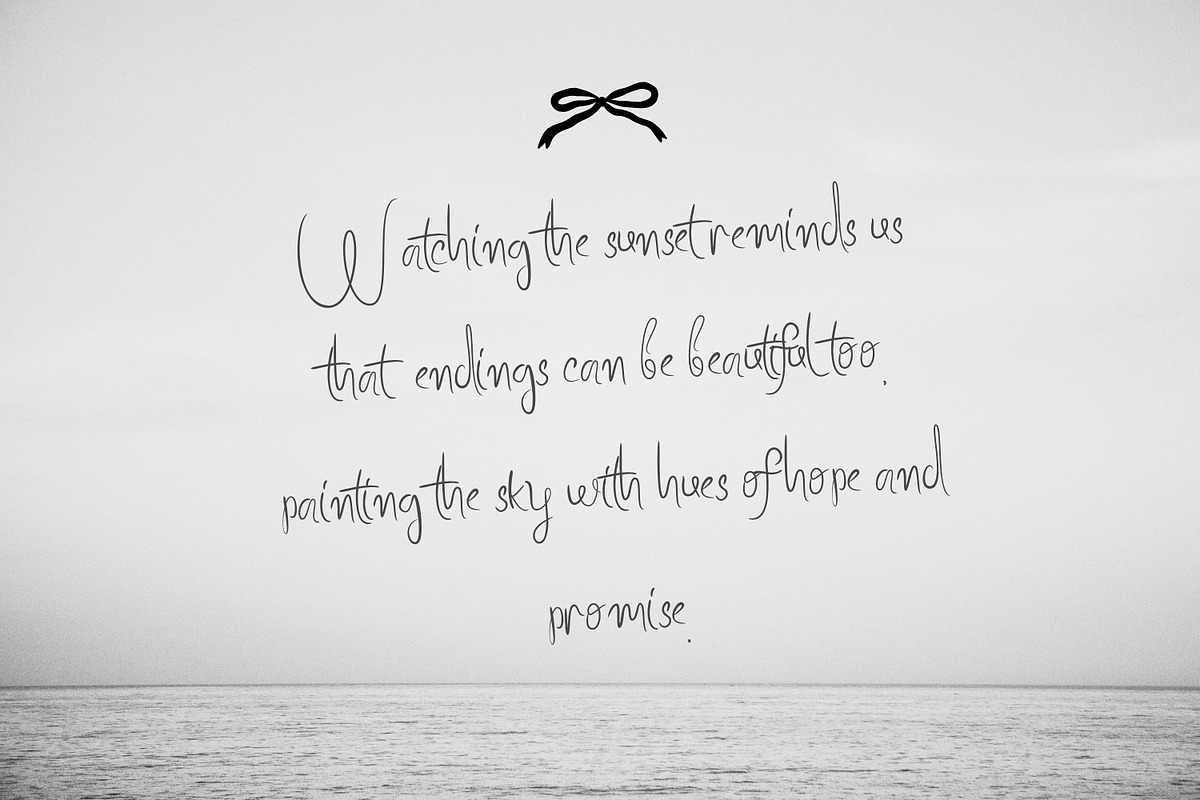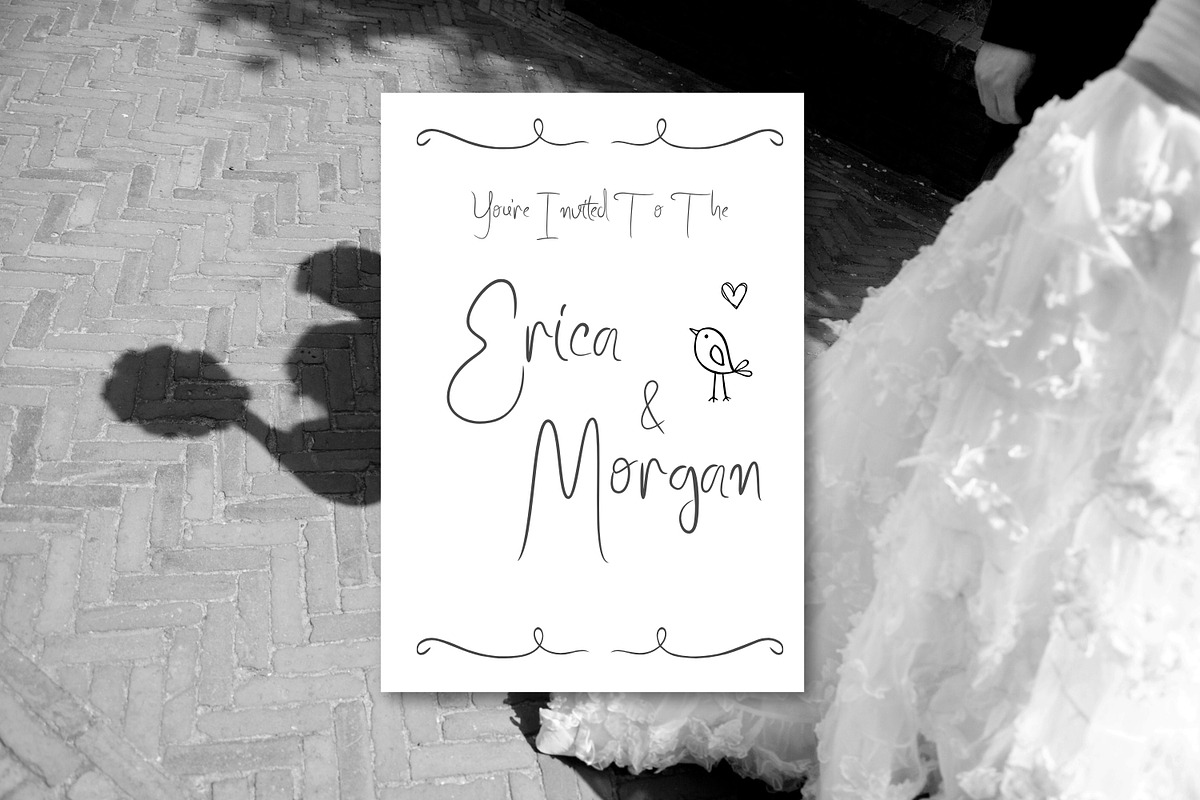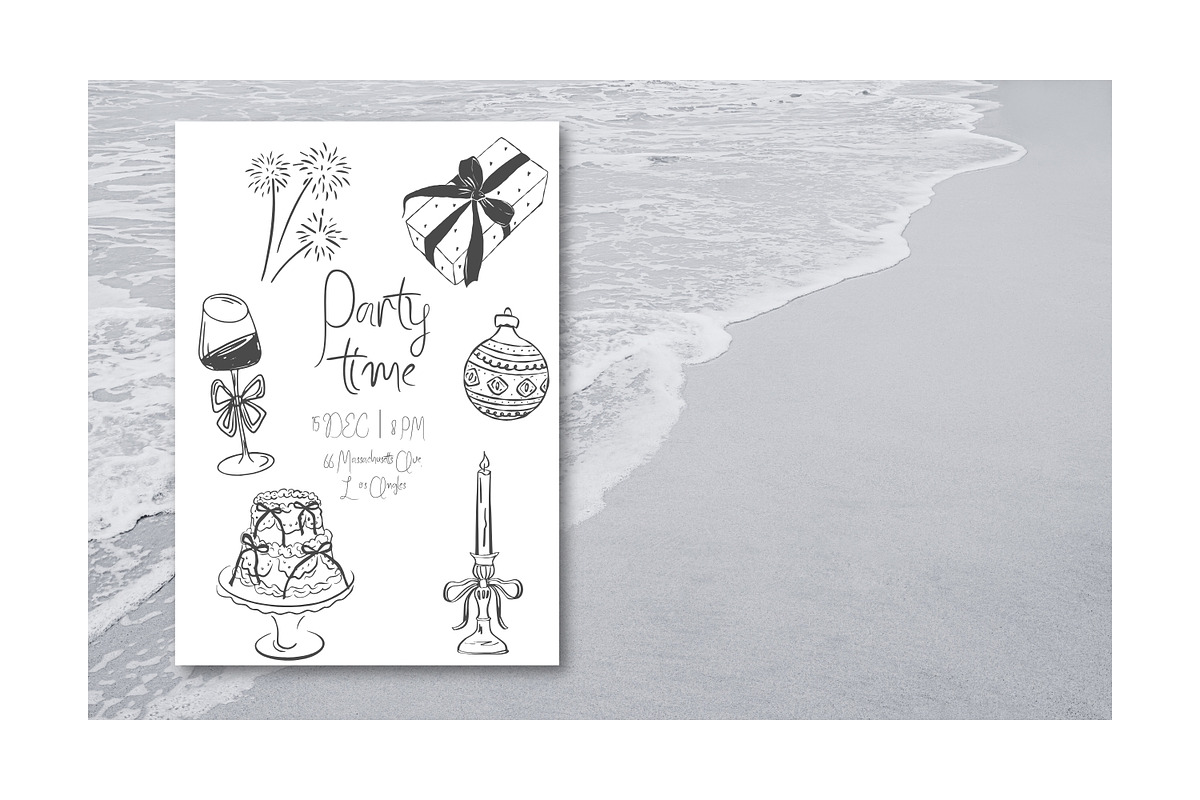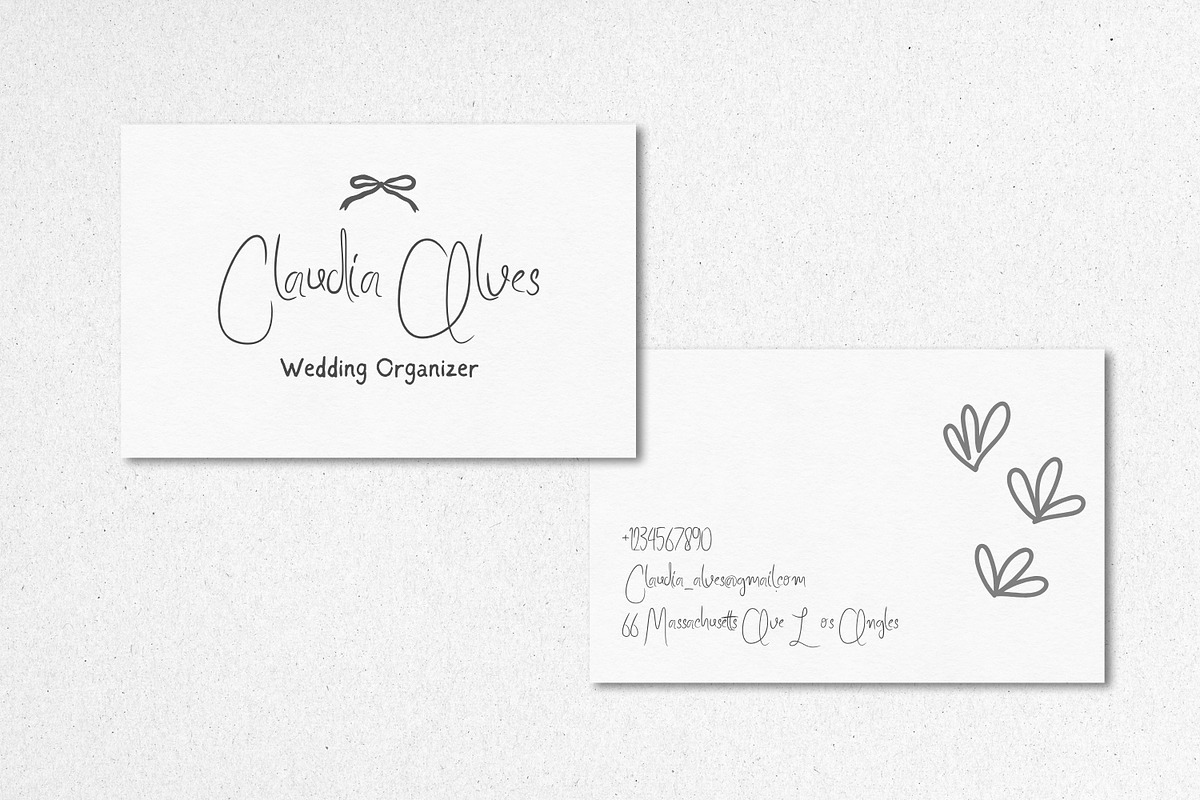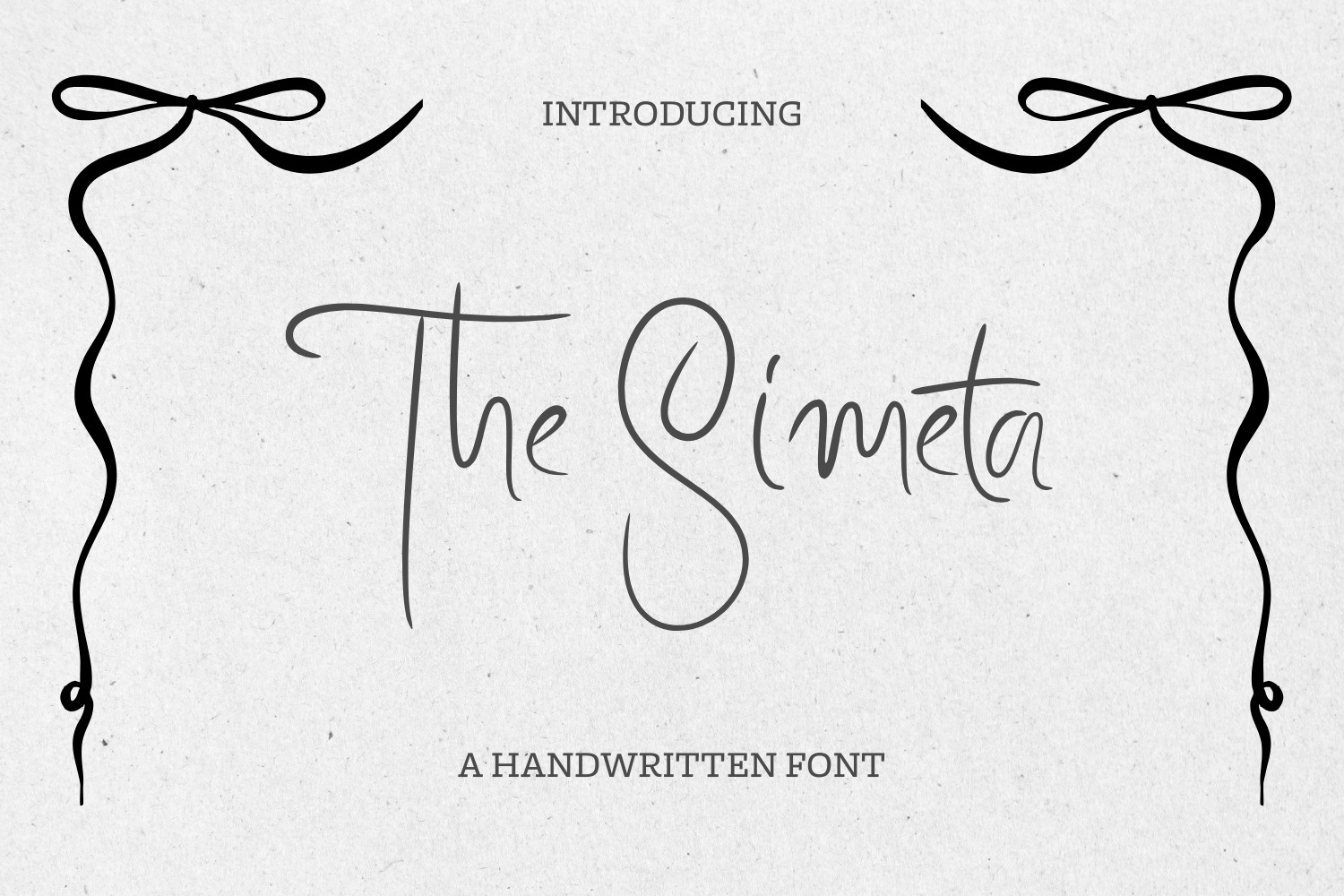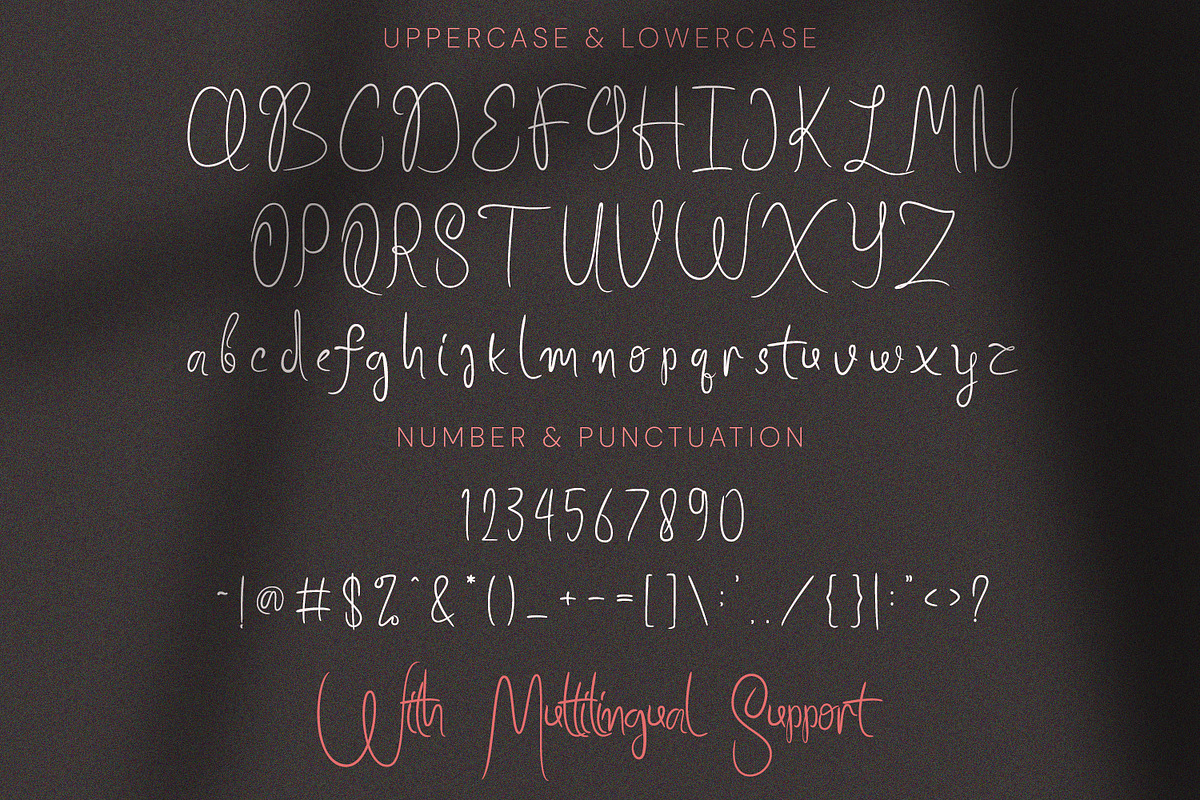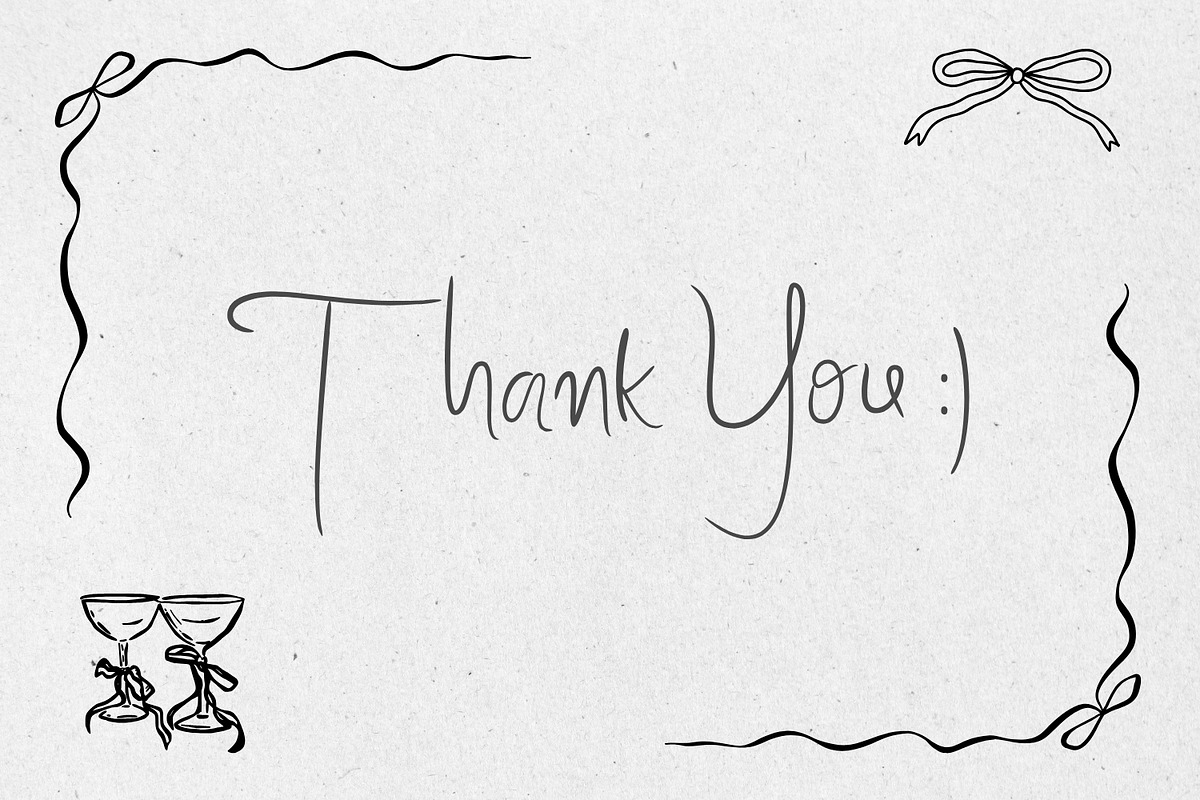
The Simeta – Handwritten Script Font
The Simeta is a soft and charming handwritten font designed to bring a natural, warm, and personal feel to your designs. With its light strokes, gentle curves, and relaxed letterforms, this font captures the beauty of authentic handwriting in a clean and elegant way.
The Simeta is perfect for wedding invitations, greeting cards, personal branding, stationery, quotes, journals, lifestyle designs, and social media content. Its simple and friendly character makes it ideal for projects that aim to feel intimate, heartfelt, and approachable.
The font includes uppercase and lowercase letters, numbers, punctuation, decorative elements, ligatures, and multilingual support, making it versatile for both print and digital use. The Simeta works beautifully in minimal layouts as well as expressive handwritten compositions.
The Simeta is an excellent choice for designers looking for a handwritten font that feels calm, genuine, and timeless.